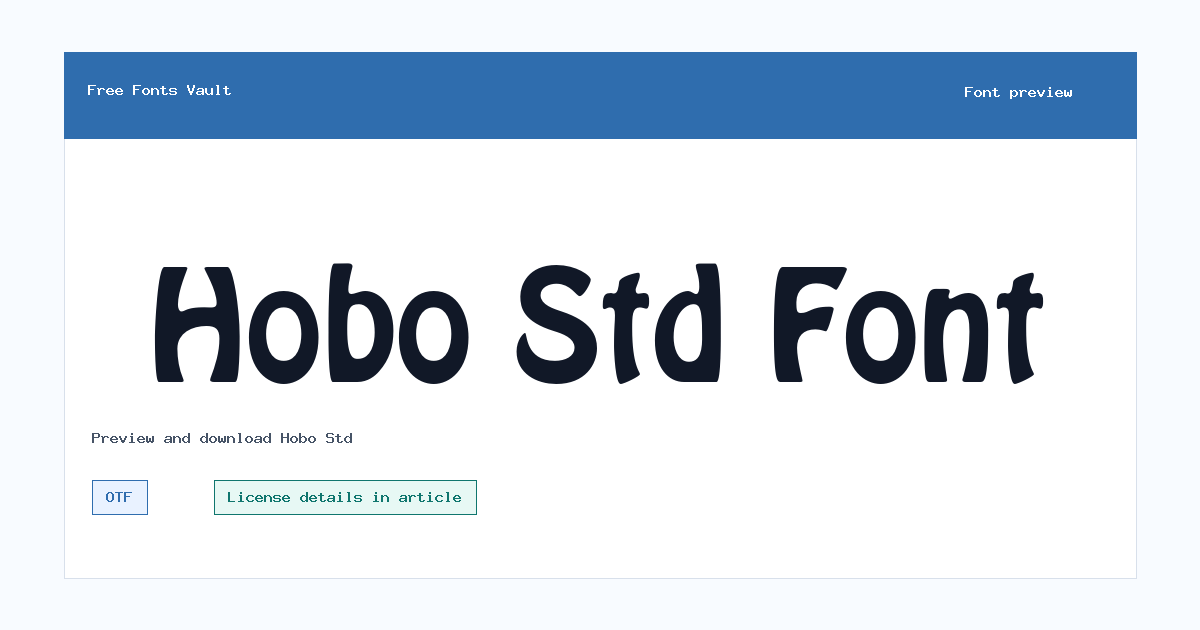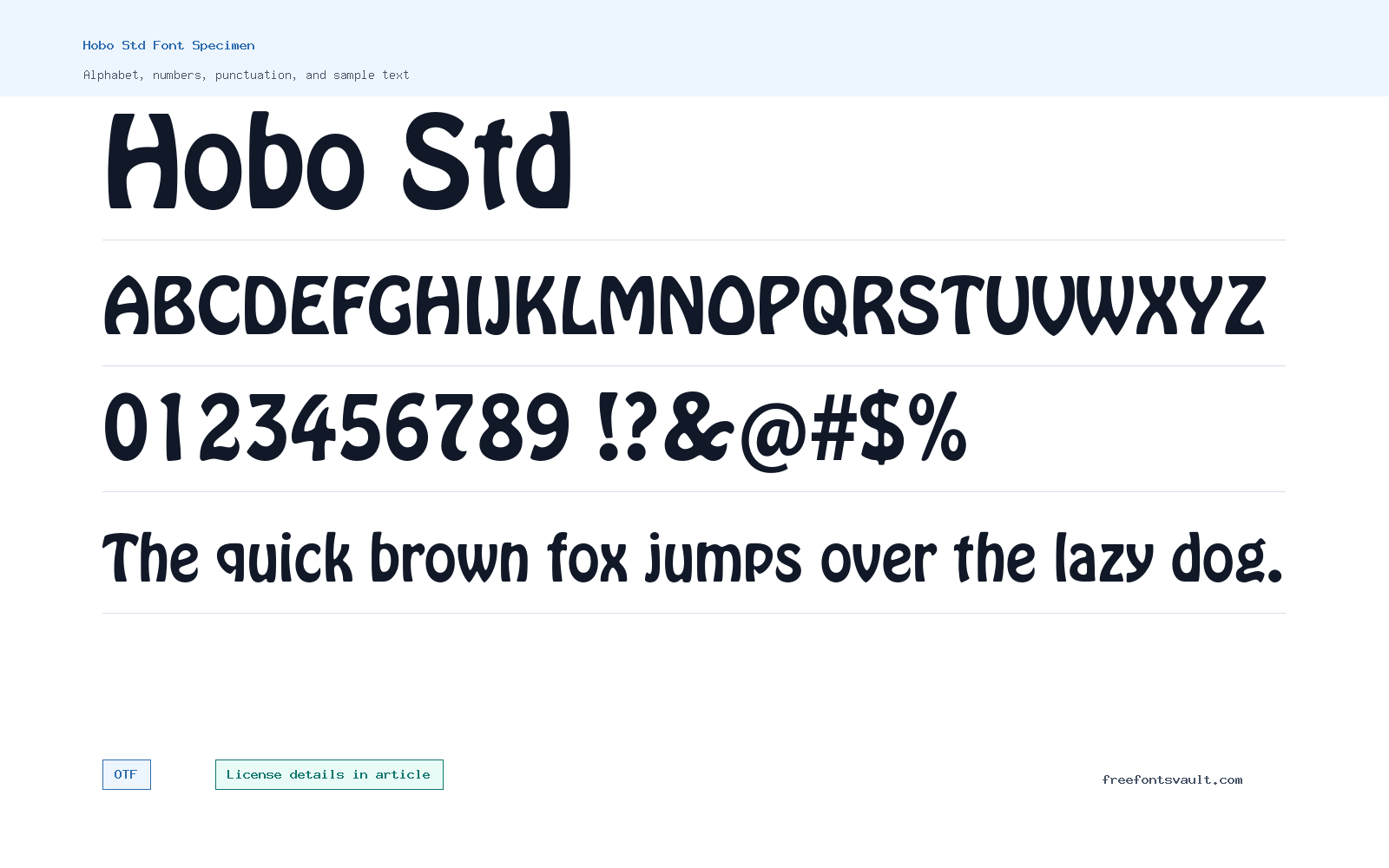
Hobo Std
- Designer Morris Fuller Benton
Hobo Std is a rounded decorative display font with a soft, uneven rhythm and a friendly look. It works best when the text is short, large, and meant to stand out.
Hobo was designed by Morris Fuller Benton in 1910 for American Type Founders. Adobe Fonts describes the design as Art Nouveau-inspired and notes two of its most recognizable traits: it has no straight lines and no descenders. Those details give Hobo Std its rolling, informal shape, making it very different from a neutral sans serif or a sharp headline face.
Use Hobo Std for display settings where personality matters more than long-form reading. It can suit menus, packaging-style layouts, playful signage, invitations, retro-flavored headlines, stickers, labels, and short poster text. Because the letters are rounded and distinctive, test words with lowercase-heavy text, numbers, and punctuation in the preview before downloading. It is not a strong choice for body copy, dense paragraphs, small captions, or clean corporate interfaces.
Hobo Std is strongest when it becomes the visual accent of a layout. Let the rounded letters carry one headline or label, then keep the surrounding typography quieter so the design still feels easy to scan.
- Rounded decorative letterforms with no straight-line feel
- Display-focused style suited to short headlines and labels
- Single regular/medium style
- Distinctive lowercase shapes that should be tested at the intended size
- Good for testing short brand names where rounded decorative lettering is the main visual cue
- Menus, food labels, packaging mockups, and casual signage
- Invitations, posters, stickers, and short decorative headlines
- Retro or Art Nouveau-inspired display text
- Large preview text where the rounded shapes remain clear
- Playful display layouts that need one memorable type choice rather than a full text family
Hobo is credited to Morris Fuller Benton. Adobe Fonts lists the Hobo family under Adobe Originals, and the original design is associated with American Type Founders.
Keep Hobo Std large and brief. Try it with your real title, brand name, menu item, or label text before using it in a final design, because its rounded forms and lack of descenders can change the spacing and texture of words.
What kind of font is Hobo Std?
Hobo Std is a decorative display font with rounded, informal shapes. It is meant for short text rather than long reading.
Who designed Hobo?
Hobo was designed by Morris Fuller Benton.
Is Hobo Std good for body text?
No. It is much better for headlines, labels, menus, posters, and other short display uses.
How should I pair Hobo Std?
Pair it with a plain sans serif or readable serif for supporting copy. That keeps Hobo Std as the decorative headline voice without making the whole layout feel heavy.